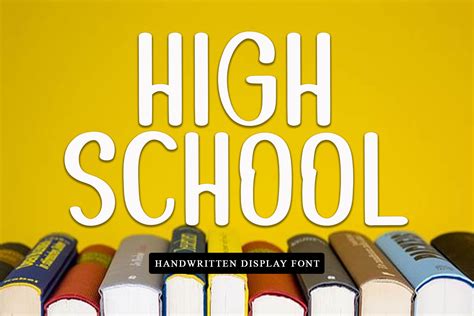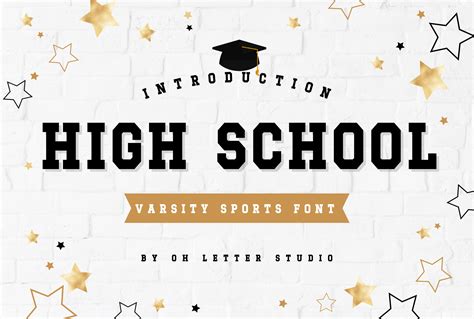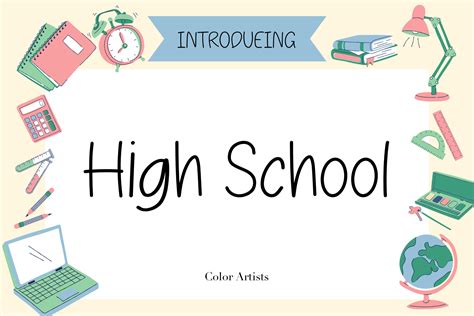
In the realm of graphic design and typography, the choice of font can significantly impact the overall aesthetic and readability of a project. One font that has gained considerable attention, particularly among designers and educators, is the High School Font. This font is not just a stylistic choice but also a functional one, often used in educational materials, presentations, and various design projects. Understanding the nuances of the High School Font can help designers make informed decisions about when and how to use it effectively.
What is the High School Font?
The High School Font is a typeface that evokes a sense of nostalgia and familiarity, often reminiscent of the fonts used in classic educational materials. It is characterized by its clean, legible design, making it an excellent choice for educational content. The font's simplicity and readability make it suitable for a wide range of applications, from textbooks to digital presentations.
Characteristics of the High School Font
The High School Font stands out due to several key characteristics:
- Legibility: The font is designed to be easily readable, even at smaller sizes. This makes it ideal for educational materials where clarity is paramount.
- Simplicity: The clean and uncluttered design of the High School Font ensures that it does not distract from the content. It allows the text to be the focal point.
- Versatility: This font can be used in various contexts, from print materials to digital media, making it a versatile choice for designers.
- Nostalgic Appeal: The High School Font often evokes a sense of nostalgia, making it a popular choice for projects that aim to capture a retro or classic feel.
Applications of the High School Font
The High School Font is widely used in various applications due to its versatility and readability. Some of the most common uses include:
- Educational Materials: Textbooks, worksheets, and educational posters often use the High School Font to ensure that the content is easily readable and engaging for students.
- Presentations: PowerPoint presentations, slideshows, and other visual aids benefit from the clean and legible design of the High School Font.
- Digital Media: Websites, blogs, and online courses can use the High School Font to create a cohesive and professional look.
- Print Media: Flyers, brochures, and other printed materials can benefit from the font's nostalgic appeal and readability.
Designing with the High School Font
When designing with the High School Font, there are several best practices to keep in mind to ensure that the font is used effectively:
- Consistency: Maintain consistency in font usage throughout the project. This helps in creating a cohesive and professional look.
- Contrast: Use contrasting colors and backgrounds to ensure that the text stands out and is easily readable.
- Size: Adjust the font size according to the medium. For print materials, a larger size may be necessary, while for digital media, a smaller size can be used.
- Spacing: Pay attention to line spacing and letter spacing to ensure that the text is not cramped and is easy to read.
Here is a table summarizing the best practices for designing with the High School Font:
| Best Practice | Description |
|---|---|
| Consistency | Maintain a uniform font style throughout the project. |
| Contrast | Use contrasting colors and backgrounds for better readability. |
| Size | Adjust font size based on the medium (print vs. digital). |
| Spacing | Ensure adequate line and letter spacing for readability. |
📝 Note: Always preview your design on different devices and in various lighting conditions to ensure that the High School Font remains readable and visually appealing.
Comparing the High School Font with Other Fonts
To fully appreciate the High School Font, it's helpful to compare it with other popular fonts used in educational and design contexts. Here are a few comparisons:
- Arial: Arial is a widely used sans-serif font known for its simplicity and readability. While it is versatile, it lacks the nostalgic appeal of the High School Font.
- Times New Roman: This serif font is often used in academic writing due to its traditional and formal appearance. However, it may not be as legible at smaller sizes compared to the High School Font.
- Comic Sans: Comic Sans is known for its casual and playful design, making it suitable for informal contexts. However, it is often criticized for its lack of professionalism, unlike the High School Font.
Each of these fonts has its own strengths and weaknesses, and the choice between them depends on the specific requirements of the project. The High School Font stands out for its balance of readability, simplicity, and nostalgic appeal.
Case Studies: Successful Use of the High School Font
Several successful projects have effectively utilized the High School Font to achieve their design goals. Here are a few notable examples: